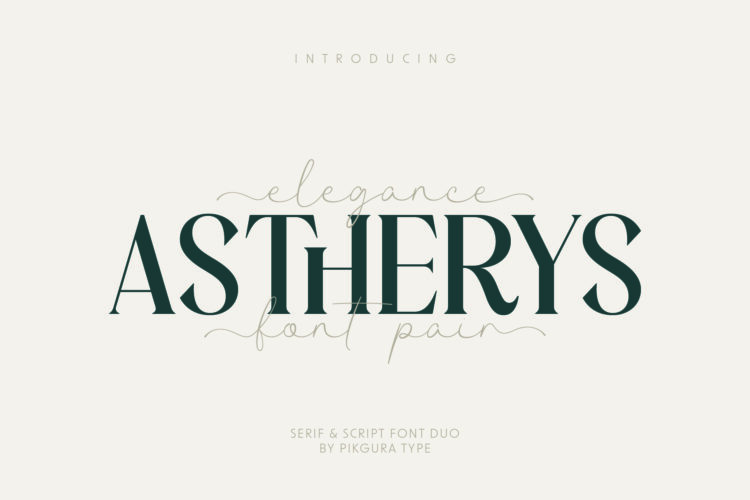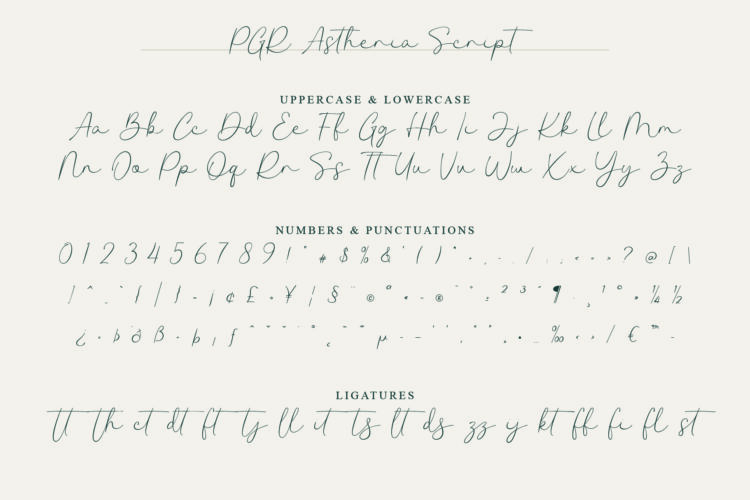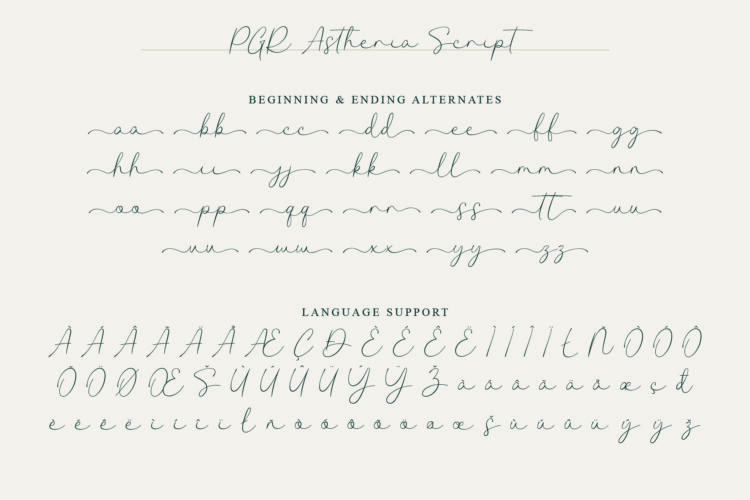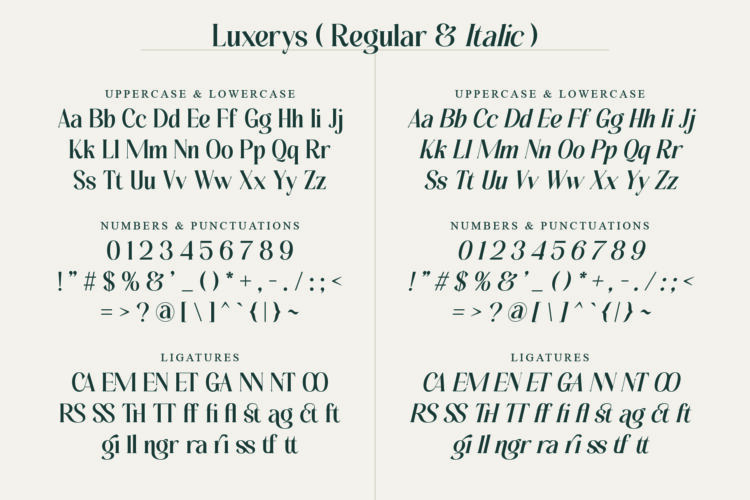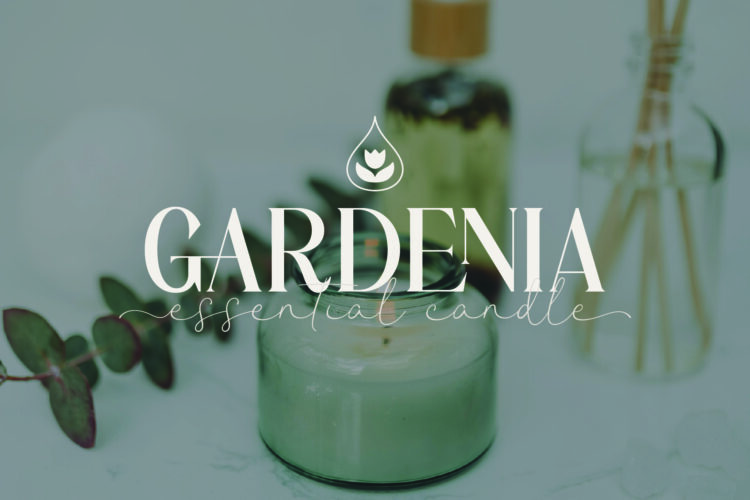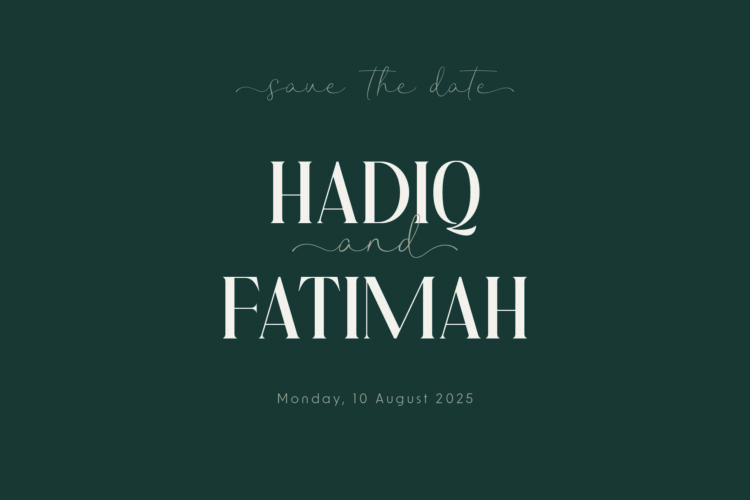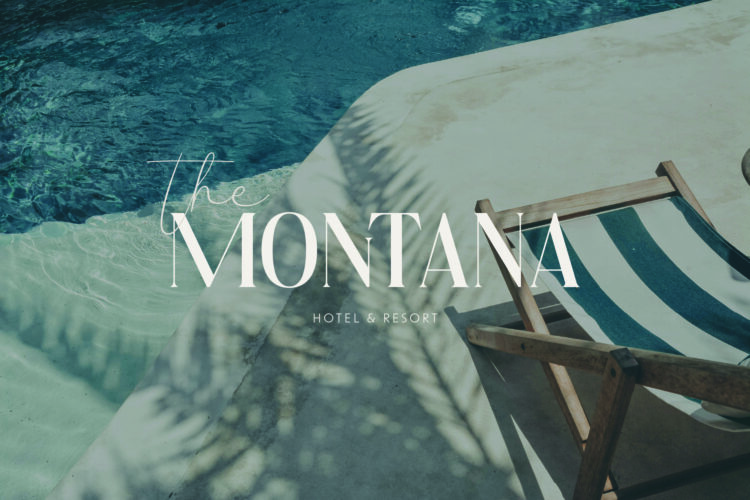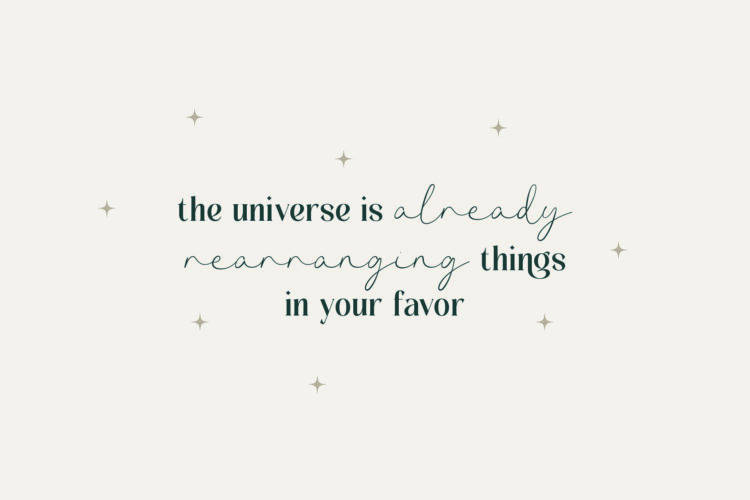
Luxerys - Regular
Luxerys - Italic
PGR Astheria Script
Astherys is a playful and charming font pair. It combines a stylish serif with a flowing script. This mix adds elegance and fun to any design.
Luxerys, the serif font, is elegant with stylish curves. It has a full alphabet, numbers, basic symbols, and a matching italic style. Luxerys works well for headlines, branding, editorials, and projects that need a sophisticated look.
PGR Astheria Script, the script font, is graceful and flowing. It includes a full alphabet, numbers, symbols, ligatures, alternate lowercase letters, and language support. This font adds a soft, personal touch. It is perfect for logos, invitations, signatures, and playful or feminine branding.
Astherys | Font Pair